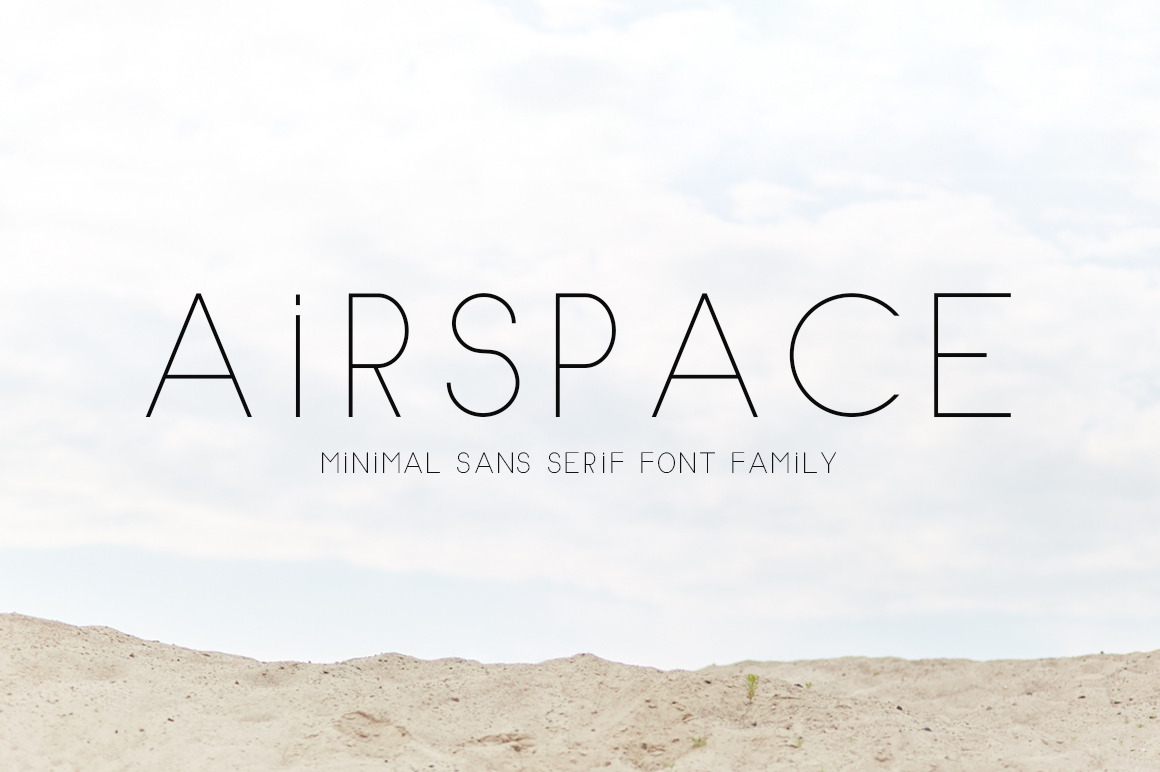
AIRSPACE | Minimal Sans Serif Font
The AIRSPACE Font is a simple, clean, and elegant sans-serif typeface that combines updated, clean letterforms with a contemporary aesthetic. It’s an ideal choice for a variety of design projects, including modern brand logos, clean magazine layouts, sophisticated invitations, and professional corporate websites. Its minimalist design makes it perfect for creating a sense of space and clarity, ensuring your message is delivered without visual clutter. The AIRSPACE Font's refined look is also excellent for creating eye-catching social media images and merchandise designs that feel both current and timeless.
What makes AIRSPACE Font so exciting is its remarkable balance of simplicity and sophistication. Its minimalist structure allows it to adapt seamlessly to almost any design context, while its carefully crafted letterforms provide a subtle touch of elegance. This font isn't about being loud; it’s about making a powerful statement through understated confidence and clean lines. Its excellent readability at various sizes makes it a versatile tool for designers who need a font that is both beautiful and highly functional.
The AIRSPACE font family includes a full set of uppercase and lowercase letters, numbers, and symbols, with both Roman and Cyrillic characters supported. This comprehensive set gives you the flexibility to handle diverse projects and ensure a cohesive look across all your designs. The font is available in an OpenType format file (.OTF), which ensures high quality and compatibility across different design software.